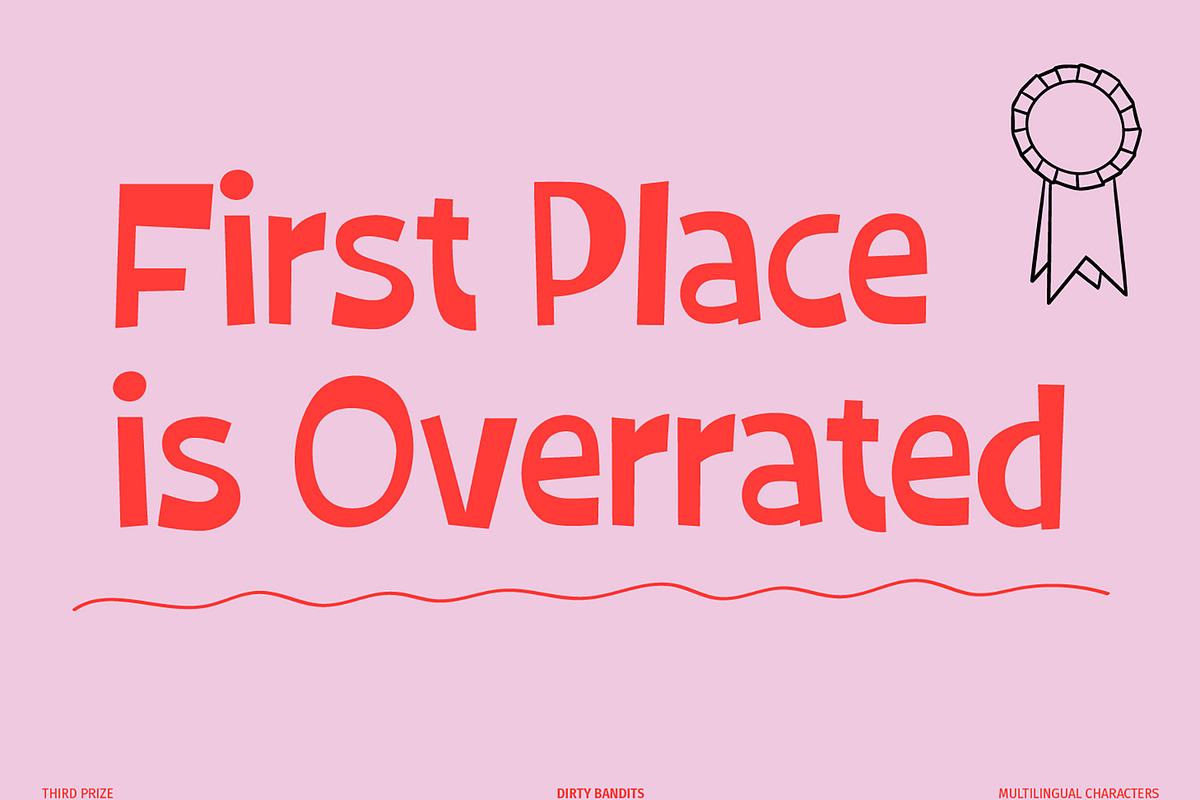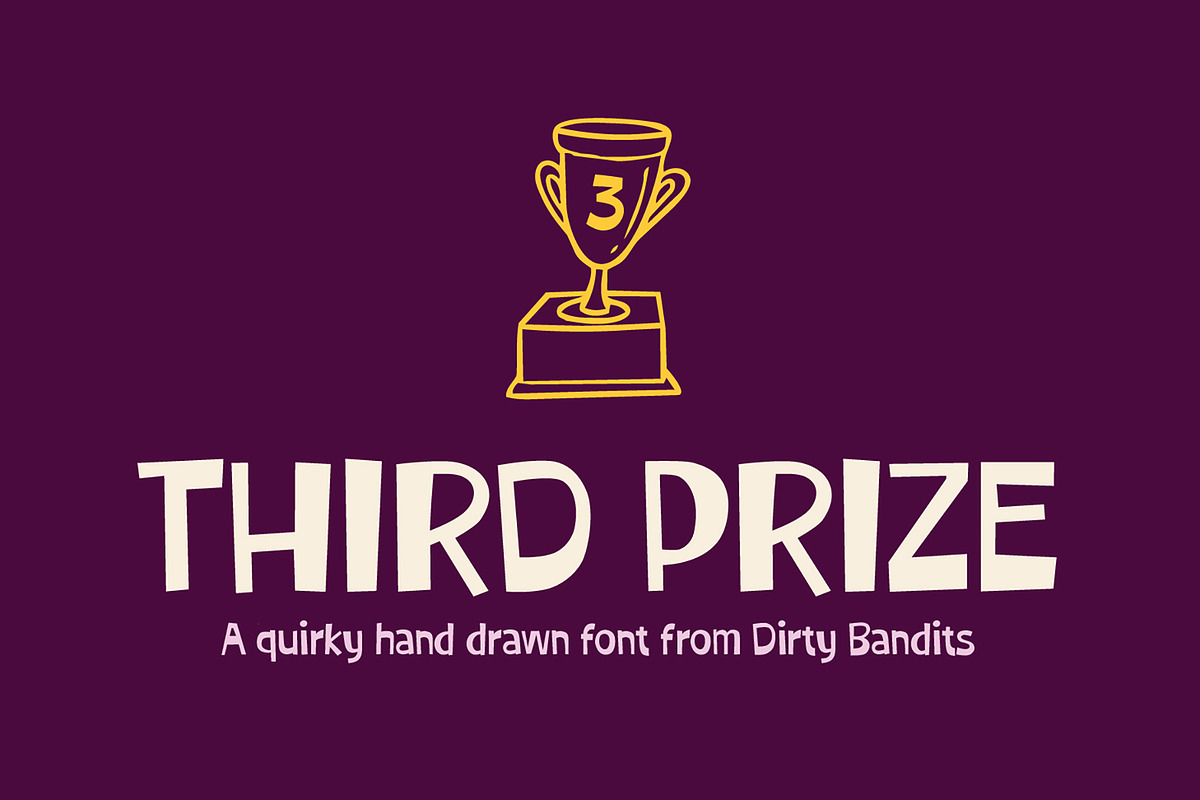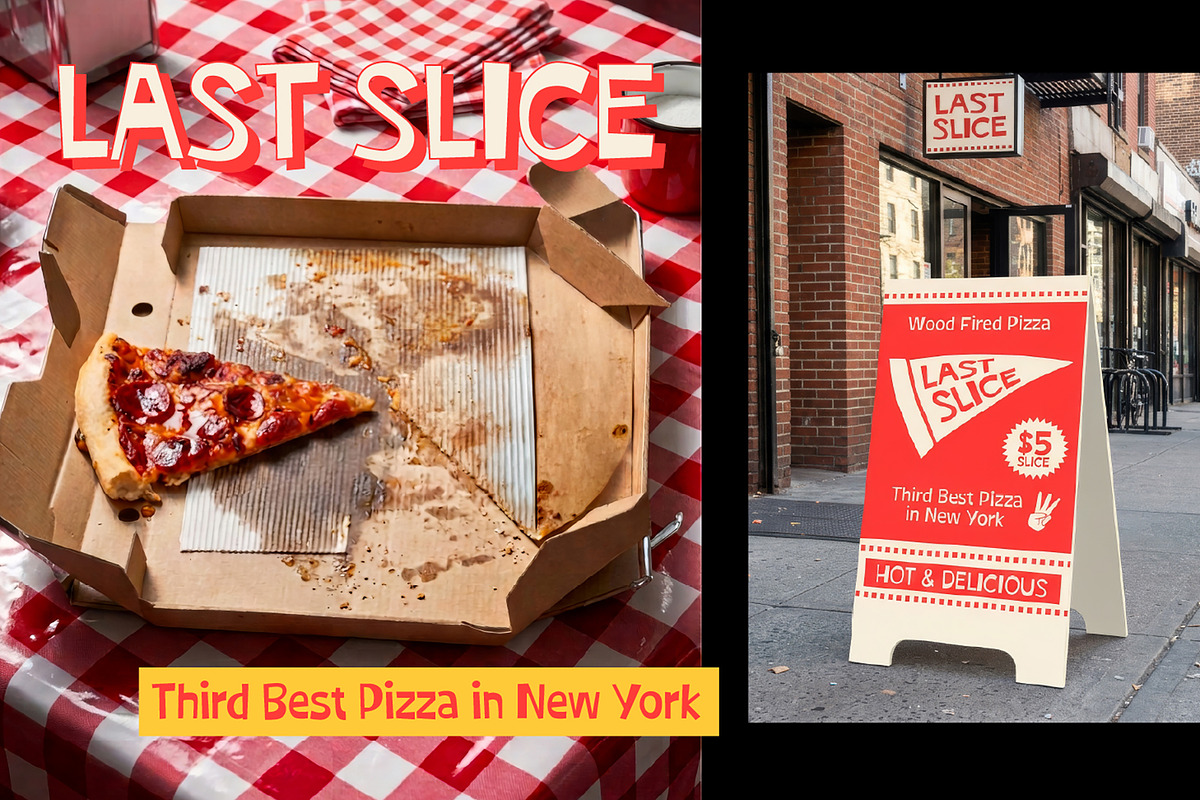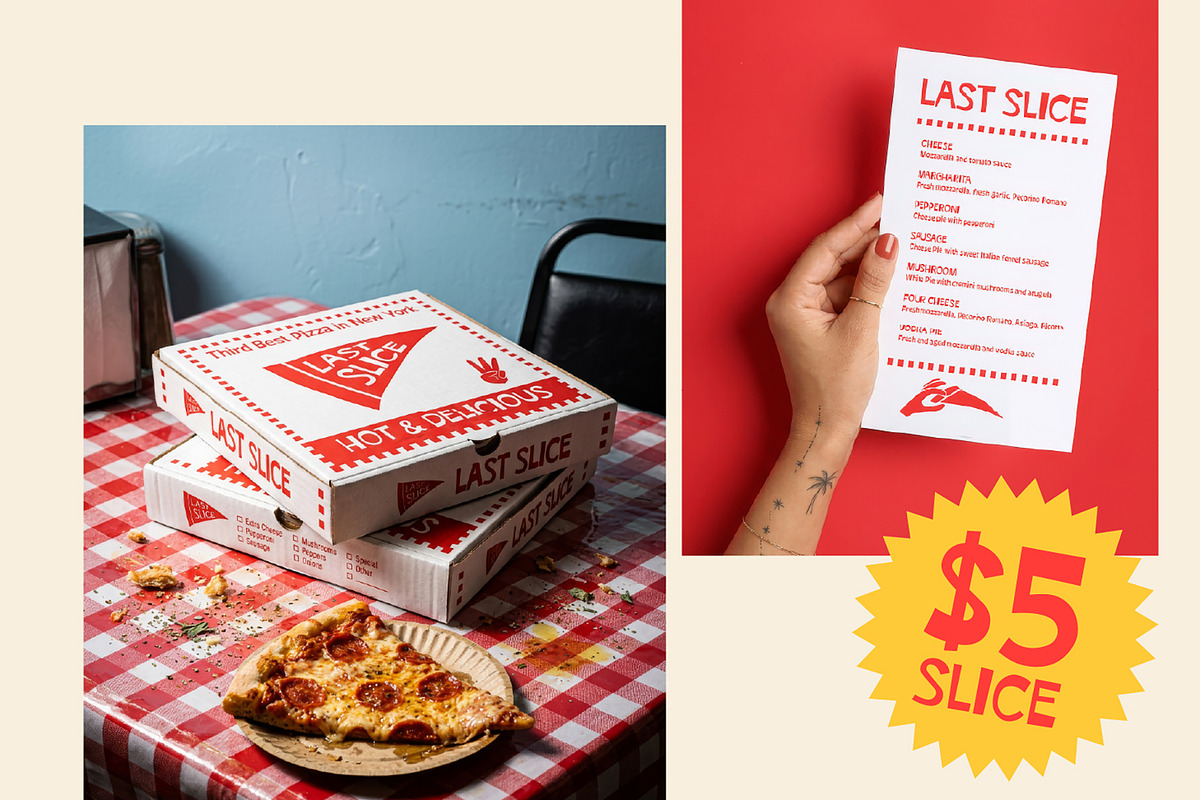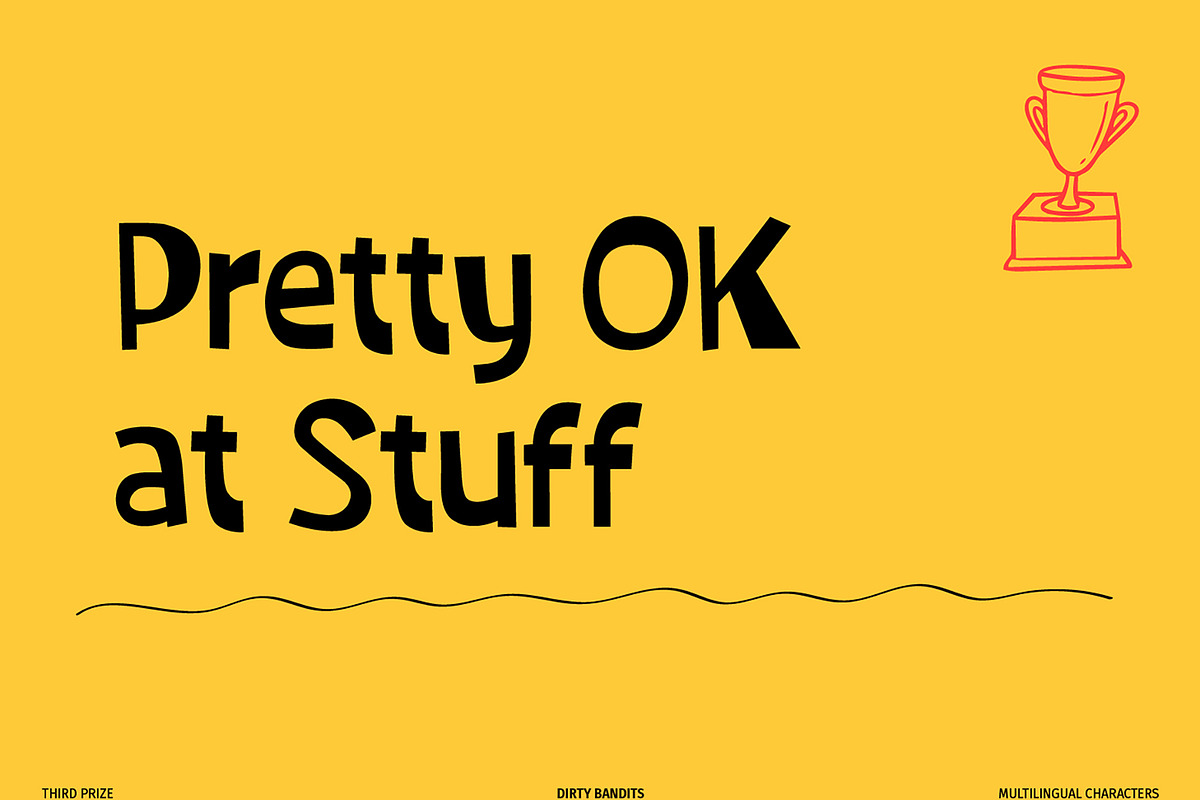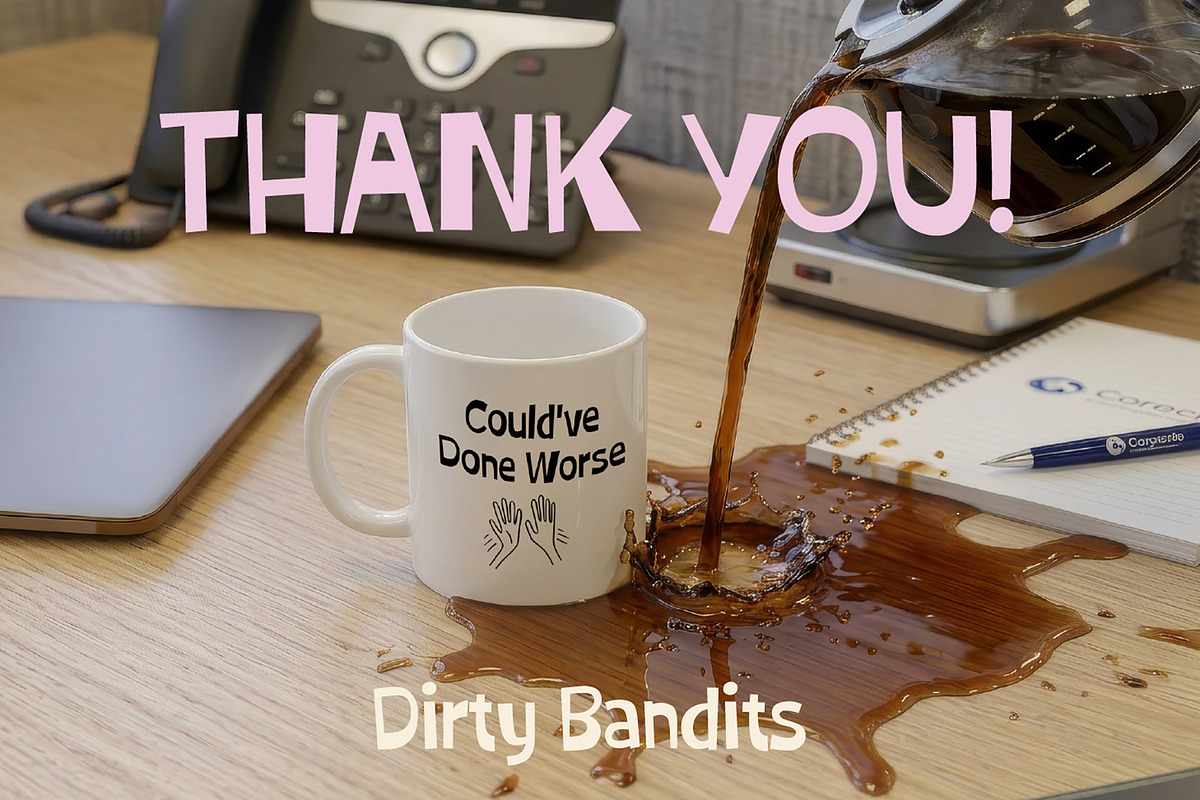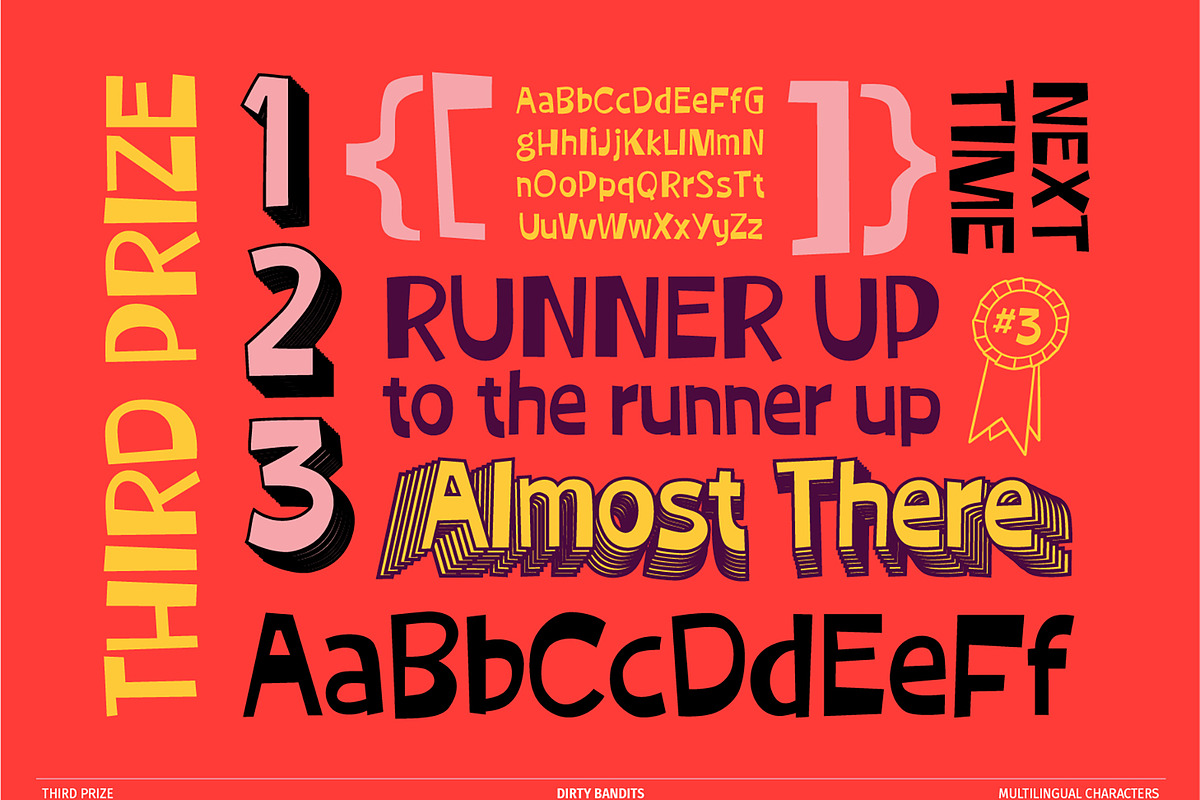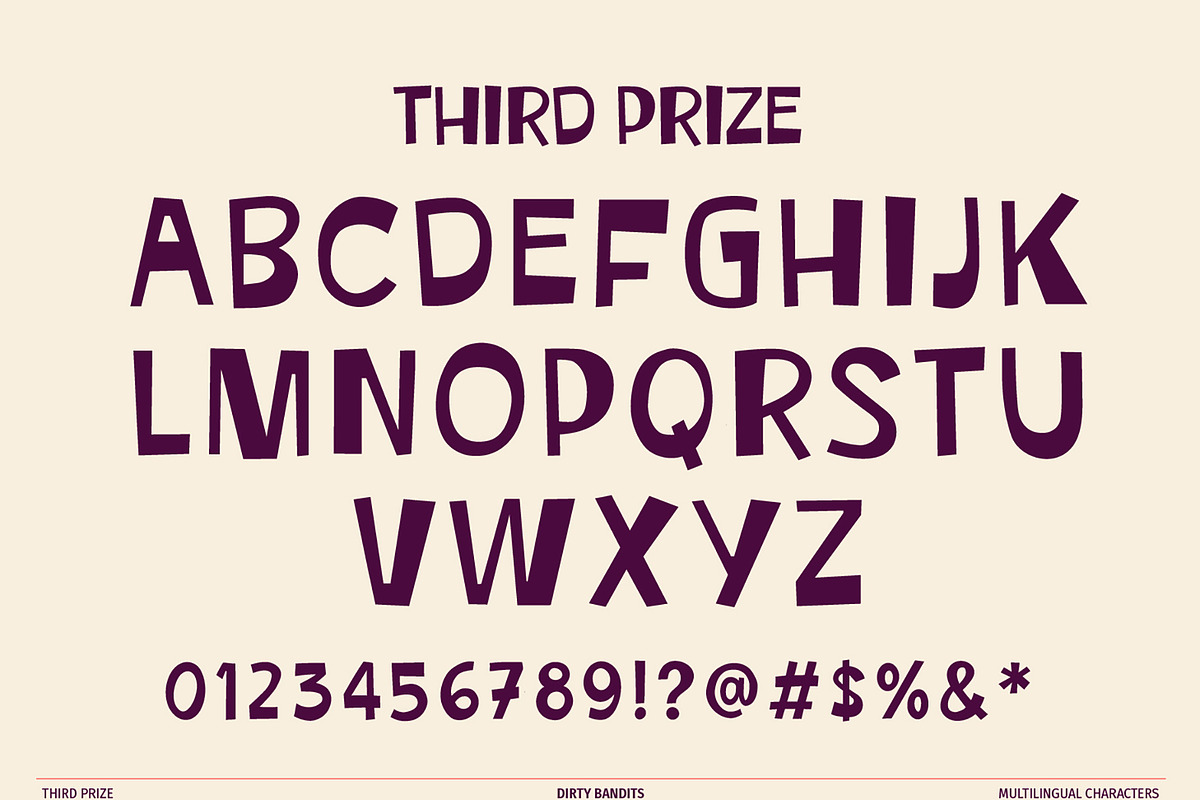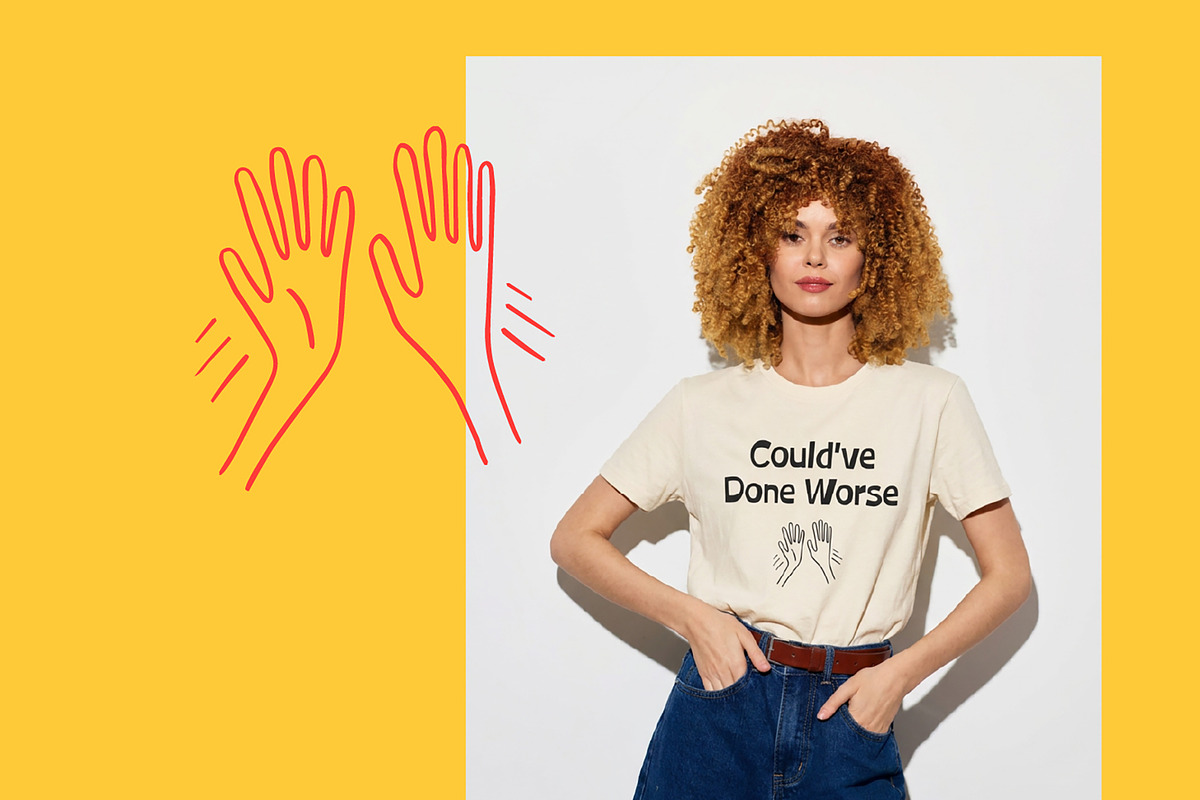
Third Prize Font
A delightfully weird, off-kilter display font. Perfect for eccentric branding, playful packaging, and designs with huge personality.
Third Prize is a fully functional display font that embraces the chaotic charm of being beautifully imperfect. Designed with a wonky rhythm, varying baselines, and unexpected character proportions, it’s tailor-made for brands that prefer to stand out rather than fit in. Third Prize gives you all the tools to craft bold, unforgettable headlines, logos, and statements.
It’s funky, it’s unpredictable, and it proves that coming in third place is way more fun than taking first—which is exactly why it stands out.
Wonky & Unexpected Rhythm: Each character features unique slants, varying stroke weights, and unpredictable baselines to create a dynamic, hand-hewn feel when typed.
Expanded Character Set: Packed with extended language support, numbers, symbols, and alternate glyphs to handle complex global projects with ease.